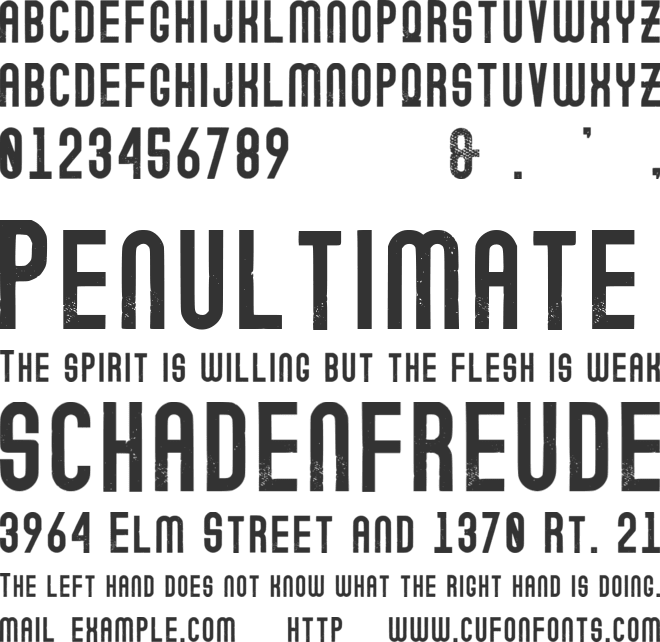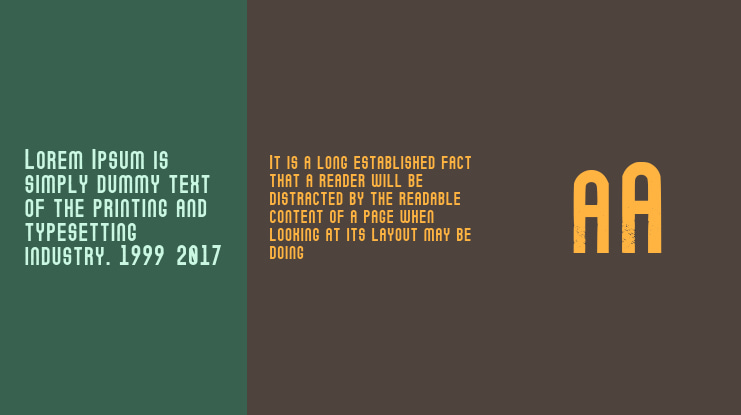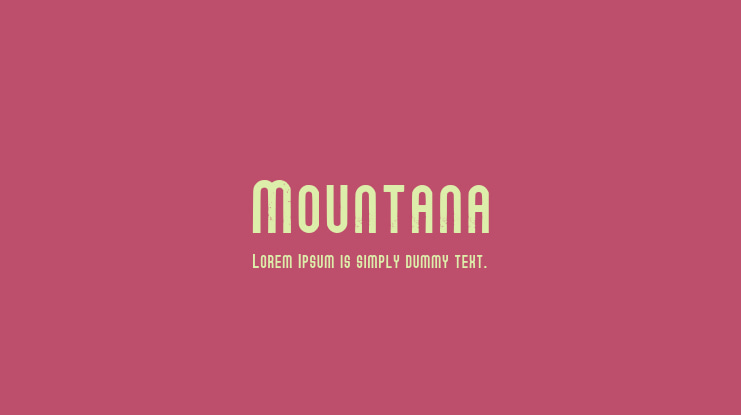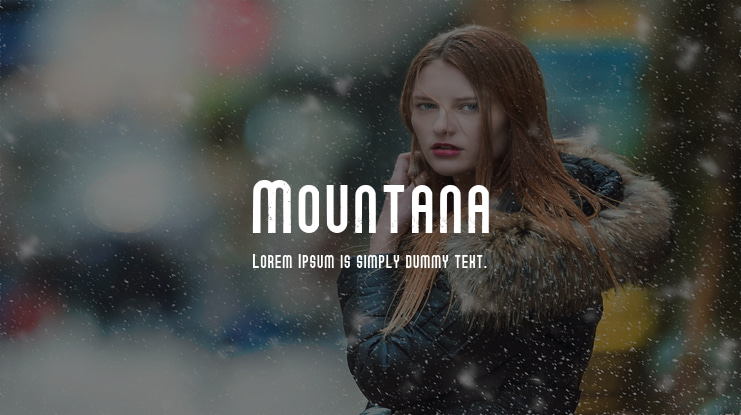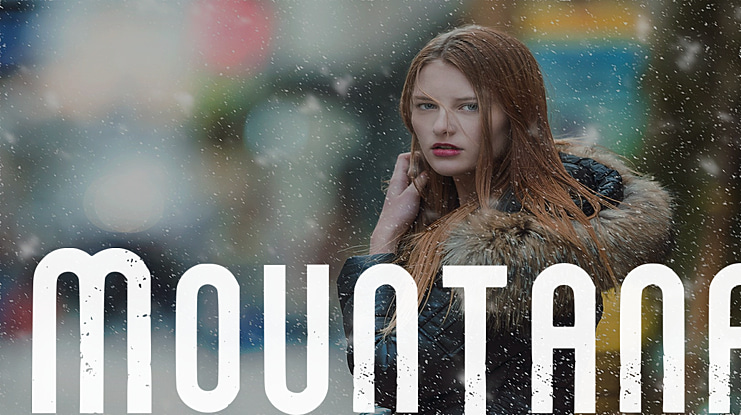
Mountana Font Family
Mountana is an incredibly cool, interesting and retro styled display font. Whatever the topic, this font will be a wonderful asset to your font library, as it has the potential to enhance any creation